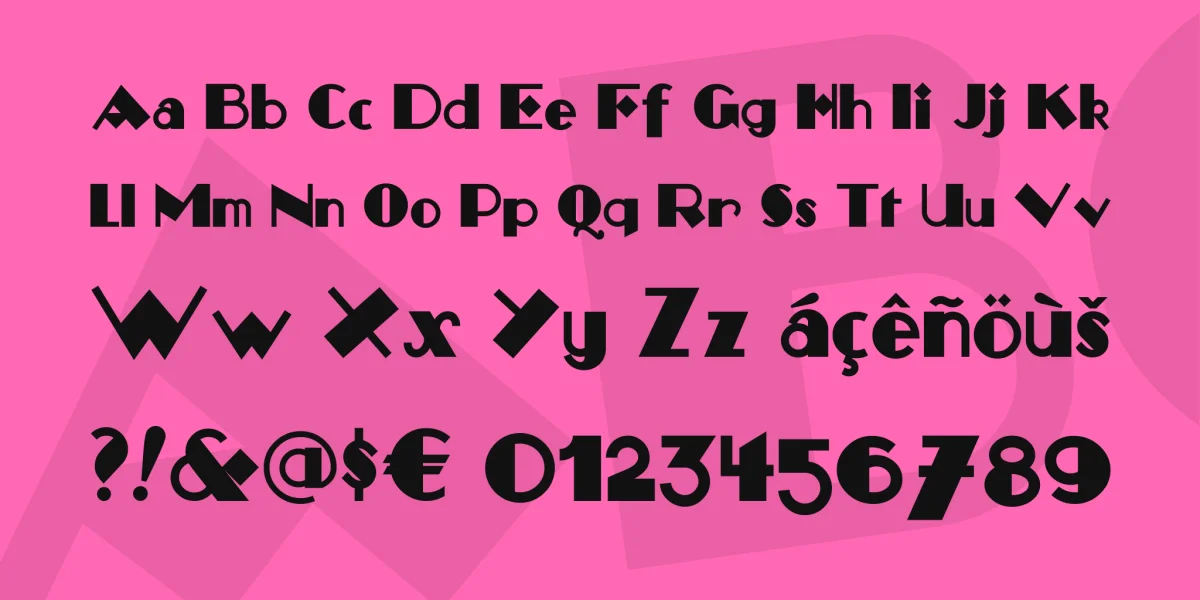
Yet another offering based on yet another untitled work by that mirthful master of tooney type, Herr Doktor Otto Heim. What can I say? I love this guy’s stuff, and I wish I could find out more about him (anybody got any info?). The font’s name continues the “Come Together” theme begun with Walrus Gumbo — can Mojo Filter and Ono Sideboard be far behind?